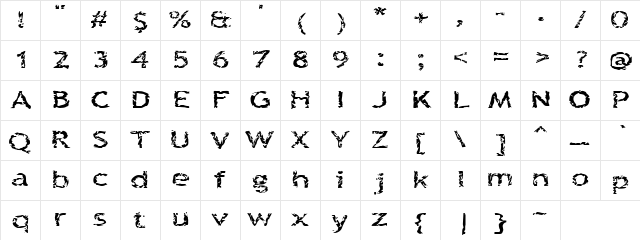
teQuinquefoliolateCorpse Normal Free Font
teQuinquefoliolateCorpse Normal
Design Context for teQuinquefoliolateCorpse
teQuinquefoliolateCorpse is a composed and adaptable typeface that performs quietly and consistently across a wide range of design contexts.